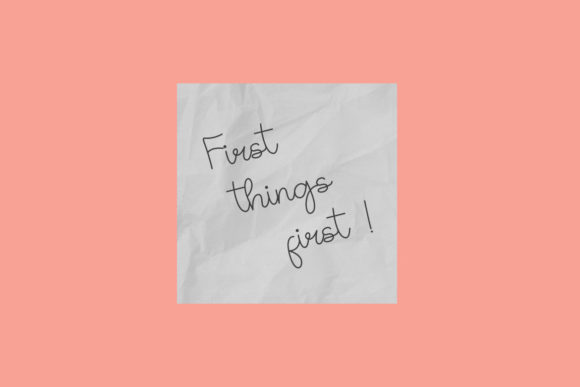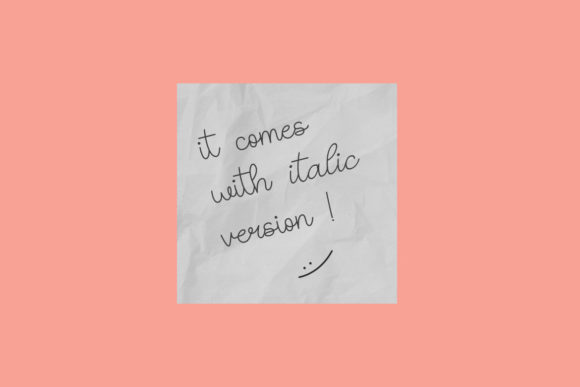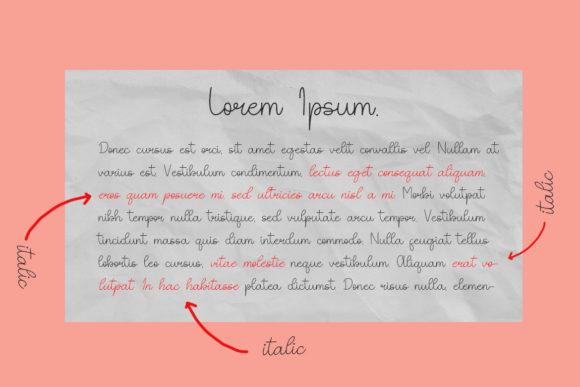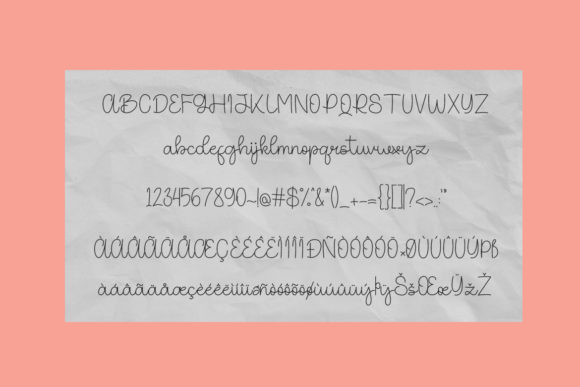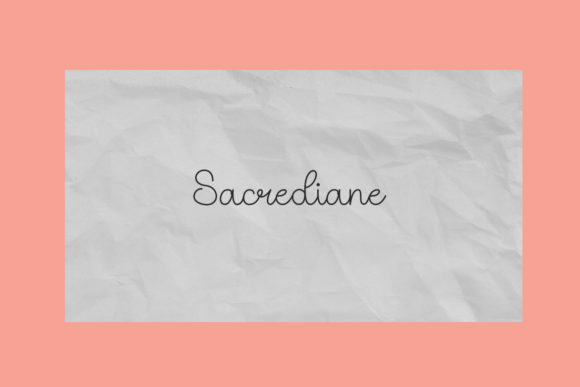
Introduction to Sacrediane Font
Sacrediane is a simple lettered, clean and cursive script font.
Fall for its delicate style and use it to create gorgeous wedding invitations, beautiful stationary art, eye-catching social media posts, and much more .
Key Features of Sacrediane Font
Why Choose Sacrediane Font?
Sacrediane Font offers exceptional quality and versatility, making it a valuable addition to your design toolkit. Whether you’re creating for personal projects or commercial use, Sacrediane Font delivers professional results.